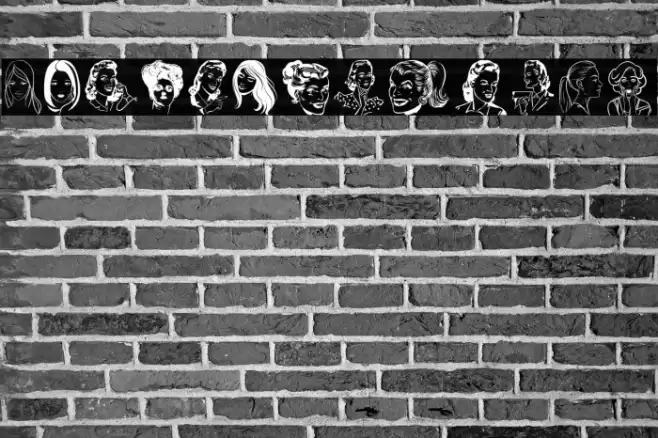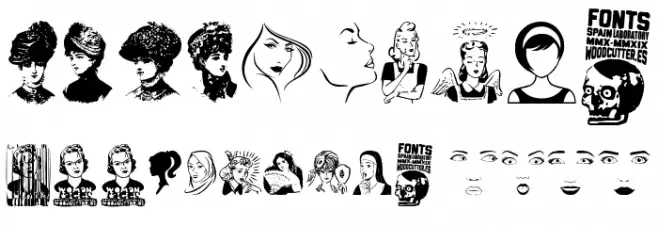
Woman Faces Font
Woman Faces Description
A decorative collection of illustrated woman faces and heads in various artistic styles, ranging from vintage comic and retro to modern line art. The glyphs are highly detailed, expressive, and diverse, with some including partial text or graphic elements. The set is not a traditional alphanumeric font but rather a pictorial dingbat or symbol font.
A decorative dingbat font featuring illustrated woman faces in multiple styles from Dingbats fonts.
- Proposed Projects: Posters, editorial illustrations, branding for beauty or fashion, social media graphics, decorative headings, zines, and themed event materials.
- Overall Style: Decorative, Retro, Modern, Comic
- Use Case: Logos, Decorative elements, Posters, Themed graphics